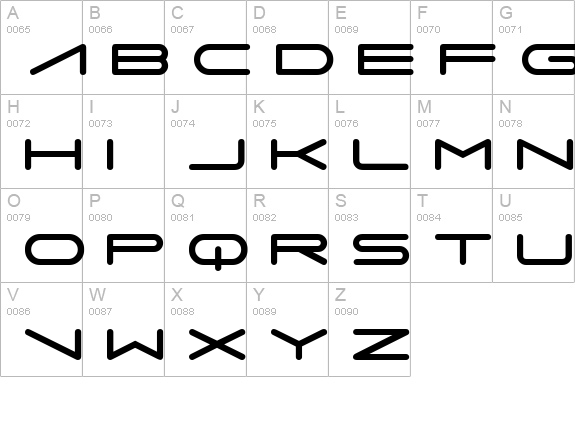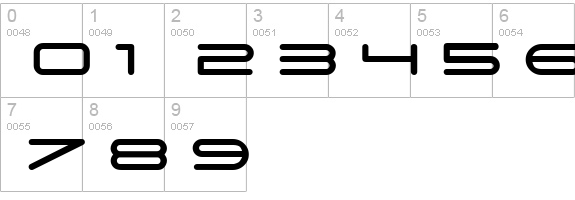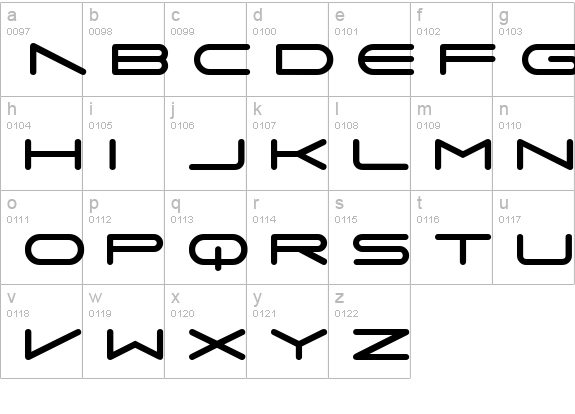
Imitari Extended Font Details
Imitari Extended is a distinctive, extended-width variant in the Imitari typeface family \xE2\x80\x94 well suited to design and typography projects.
Imitari Extended is a stunning and versatile font that will captivate and elevate any design project. With its elegant and elongated letterforms, this typeface exudes a sense of sophistication and modernity. Whether used for headlines, logos, or body text, Imitari Extended adds a touch of refinement and visual interest. This font's unique design seamlessly blends classic elements with a contemporary twist, making it suitable for a wide range of applications. Its elongated and gracefully curved letterforms create a harmonious flow, lending a sense of elegance to any composition. Imitari Extended is not only visually appealing but also highly legible, ensuring that your message is conveyed effortlessly to your audience. Its balanced proportions and carefully crafted details make it a pleasure to read, whether in print or on screen. What makes Imitari Extended even more remarkable is that it is available for free download at FontsMarket.com. This means that you can access and enjoy this exceptional font without any cost. Whether you are a professional designer or a hobbyist, Imitari Extended offers you the opportunity to enhance your projects with a high-quality font without breaking the bank. Don't miss out on the chance to elevate your designs with Imitari Extended. Download this exquisite font today from FontsMarket.com and unlock endless creative possibilities.